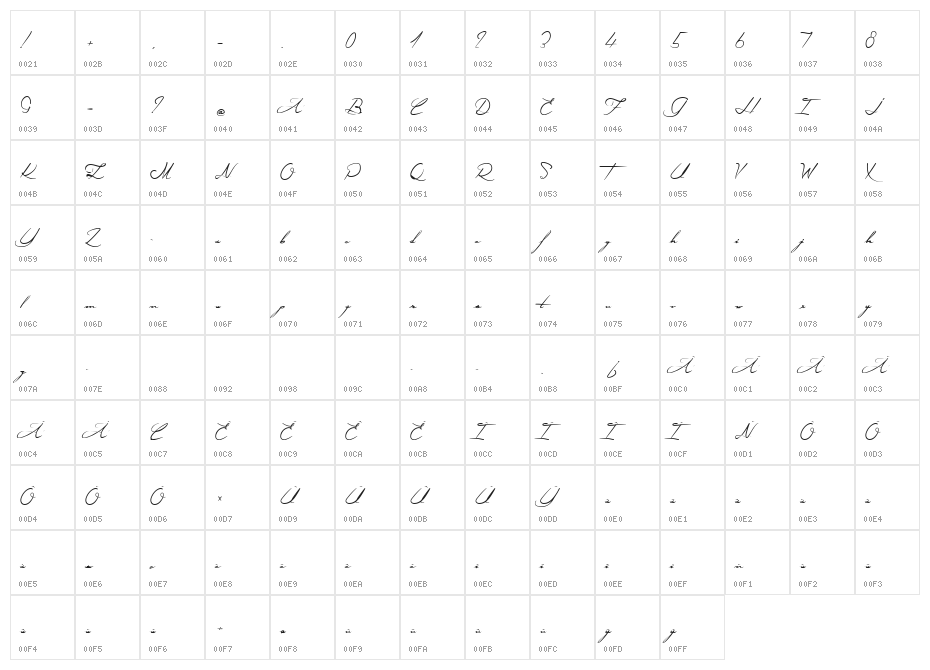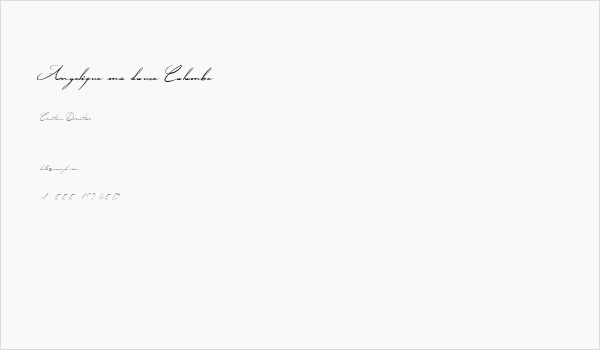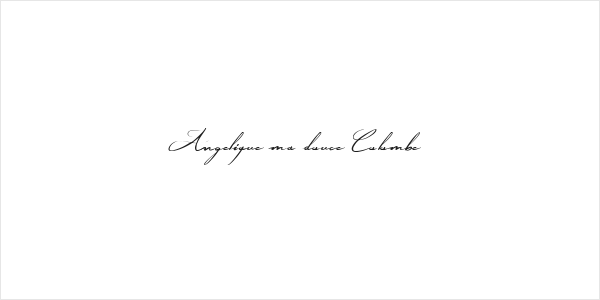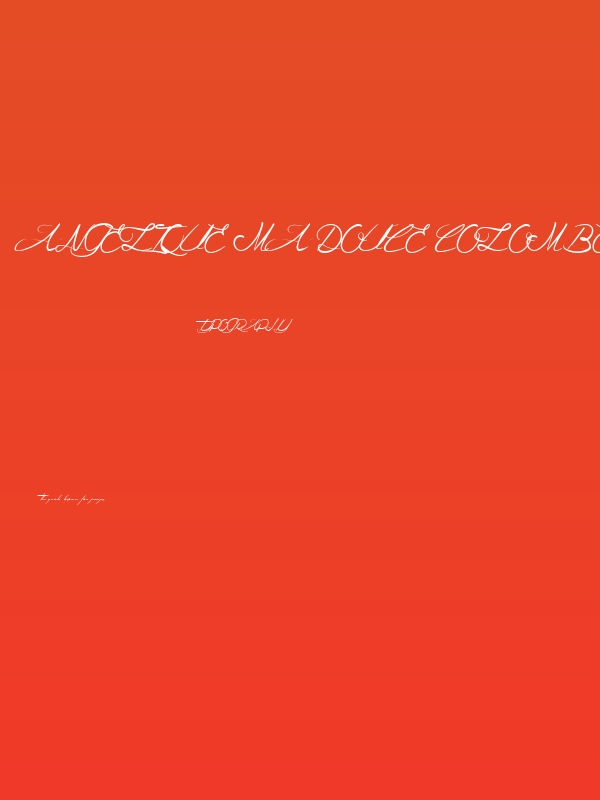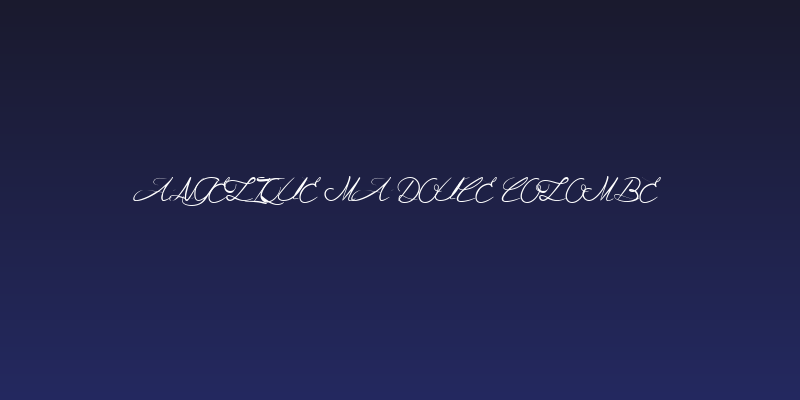
Angelique ma douce Colombe Font
Angelique ma douce Colombe Description
This elegant script font features a flowing, cursive style with intricate loops and swashes. The uppercase letters are ornate, with exaggerated flourishes that give a sense of sophistication and grace. The lowercase letters maintain a consistent slant, enhancing the fluidity and continuity of the text. Numbers and special characters are designed to match the overall aesthetic, ensuring a cohesive look. This font is perfect for projects that require a touch of elegance and refinement, such as wedding invitations, formal event programs, or luxury branding.
| Overall Style | Elegant, Sophisticated |
| Use Case | Headlines, Invitations, Branding |
| Proposed Projects | Ideal for wedding invitations, formal event programs, luxury branding, and elegant stationery. |